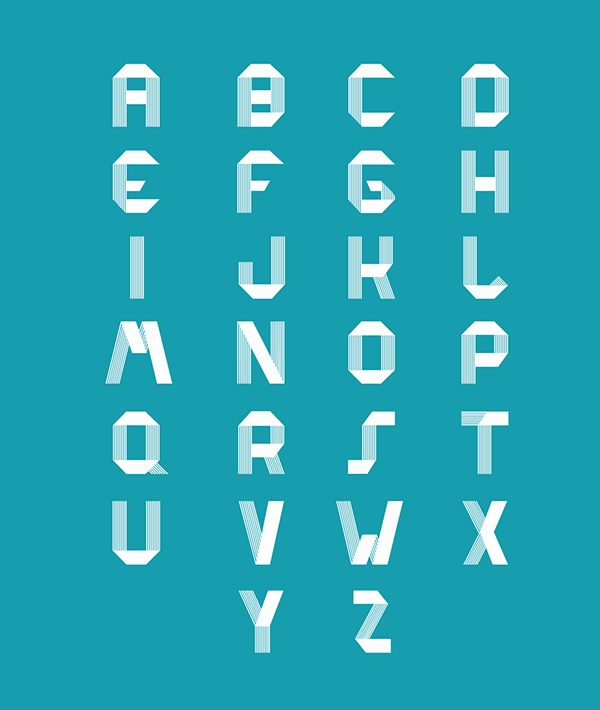
Download the RIDGE Free Typeface below. The file can be used for personal and commercial use. It was designed by Erika Noel Mackley inspired by her (previously made) 3D Folded Paper Font.